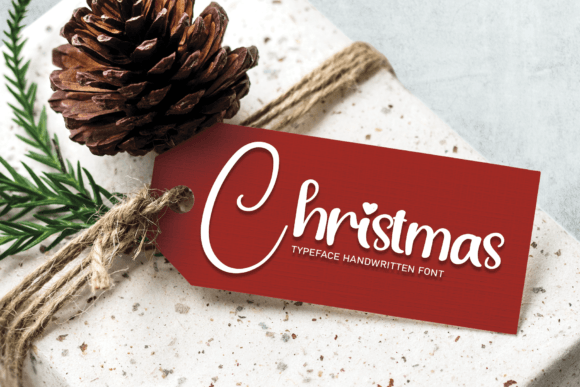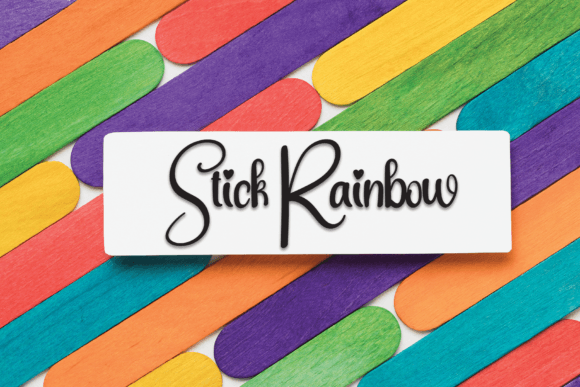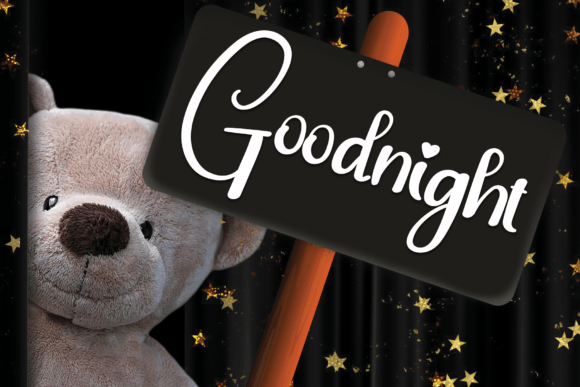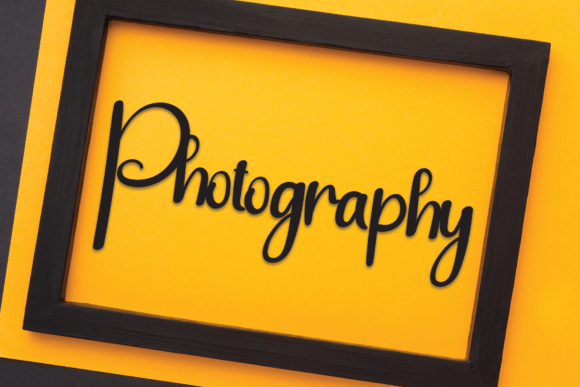
Discover the Sweet Charm of Brown Cake Font
Who hasn’t been stuck in a creative rut, staring at a blank page, wondering where to start? You’re not alone. Sometimes all it takes is the right tool to spark inspiration. For designers and crafters alike, finding that perfect font can be the game-changer they need to bring their ideas to life.
Enter Brown Cake Font, a simple and friendly handwritten font designed to add a touch of warmth and personality to any project. Whether you’re working on a digital design, creating a presentation, or crafting a greeting card, this font is the perfect companion to help you express yourself. With its versatility and charm, it’s no wonder why Brown Cake Font has become a go-to choice for many designers.
Brown Cake Font Key Features
- Unique Characteristics: A warm and inviting script font with a vintage feel, ideal for creating a cozy and welcoming atmosphere in designs.
- Font Style: Script font with a mix of uppercase and lowercase letters, offering a natural and handwritten feel.
- Font Weight: Regular (400) and Bold (700) weights available for added versatility.
Brown Cake Font Review
Overall, I think Brown Cake Font is a solid choice for those looking for a unique dessert-themed font. Here are some of the things that work well:
- ✨ Unique design: The font has a distinctive, hand-drawn look that’s sure to stand out in any project.
- ✨ Versatile: While it’s perfect for dessert-related projects, it could also work well for other food or cooking-related designs.
- ✨ Easy to read: The font is clear and easy to read, even at smaller sizes.
- ⚠️ Limited character set: The font only includes uppercase and lowercase letters, as well as a few special characters. If you need to use numbers or punctuation, you may need to use a different font or get creative with workarounds.
- ⚠️ Not ideal for body text: While the font is great for headings or titles, it may be too ornate for large blocks of body text.
Overall, I think Brown Cake Font is a great choice for designers who want to add a touch of whimsy to their projects. Just be aware of its limitations and use it judiciously to get the most out of it.
Tips for Getting the Most Out of Brown Cake Font
Use Brown Cake Font for:
– Creating a warm and inviting atmosphere
– Adding a vintage touch to your designs
– Pairing with earthy color schemes
– Creating a sense of nostalgia and warmth
Use Brown Cake Font for:
– Recipe books and food labels
– Invitations and wedding stationery
– Branding and packaging for bakeries and cafes
– Creating a cozy and welcoming atmosphere for interior design projects.
Alternatives to Brown Cake Font
Great Vibes Font is a modern, handwritten font that conveys a sense of creativity and playfulness. It is ideal for use in headings, titles, and quotes. Great Vibes Font is a great alternative to Brown Cake Font as it offers a similar feel but with a more contemporary and sophisticated look.
Comparison: Great Vibes Font has a more refined and elegant feel compared to the more rustic Brown Cake Font. It is suitable for a wider range of designs, from fashion and lifestyle to art and culture.
Pacifico Font is a beautiful, elegant script font that is perfect for use in titles, headings, and quotes. It has a soft, romantic feel that is ideal for designs that require a touch of sophistication and elegance. Pacifico Font is a great alternative to Brown Cake Font as it offers a similar sense of luxury and refinement.
Comparison: Pacifico Font has a more refined and elegant feel compared to the more casual Brown Cake Font. It is suitable for a wider range of designs, from fashion and lifestyle to art and culture.
Carolyna Pro Font is a modern, elegant script font that is perfect for use in titles, headings, and quotes. It has a soft, sophisticated feel that is ideal for designs that require a touch of luxury and refinement. Carolyna Pro Font is a great alternative to Brown Cake Font as it offers a similar sense of elegance and sophistication.